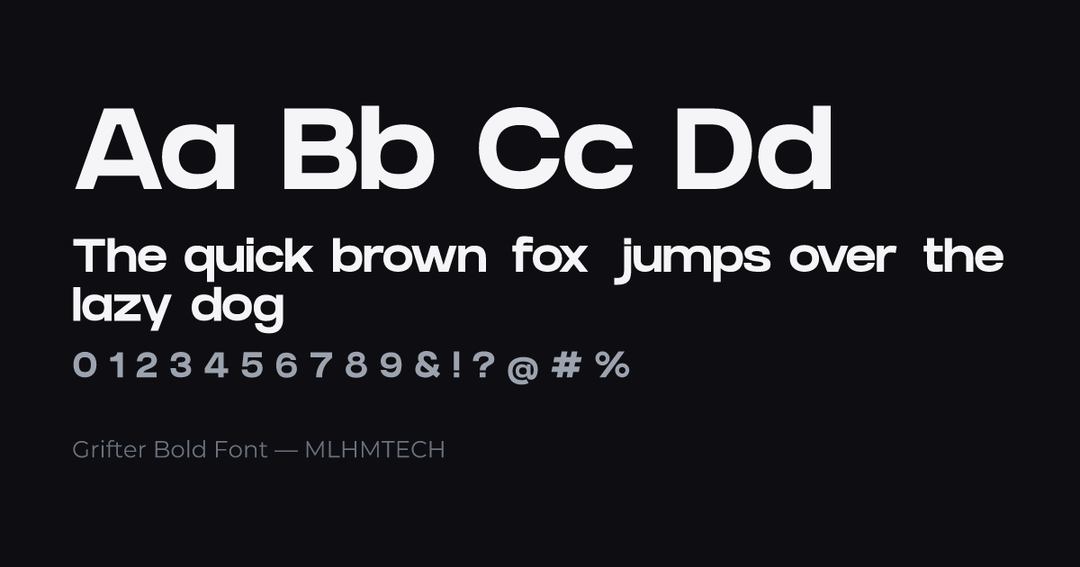
Grifter Bold Font
Grifter Bold is a versatile, modern sans-serif font with a strong presence, ideal for headlines, logos, and creative projects.
Grifter Bold is a high-contrast, geometric sans-serif typeface that exudes confidence and style. Its clean lines and bold weight make it perfect for grabbing attention in posters, social media graphics, and branding materials. The font's unique character shapes add a touch of personality while maintaining readability.